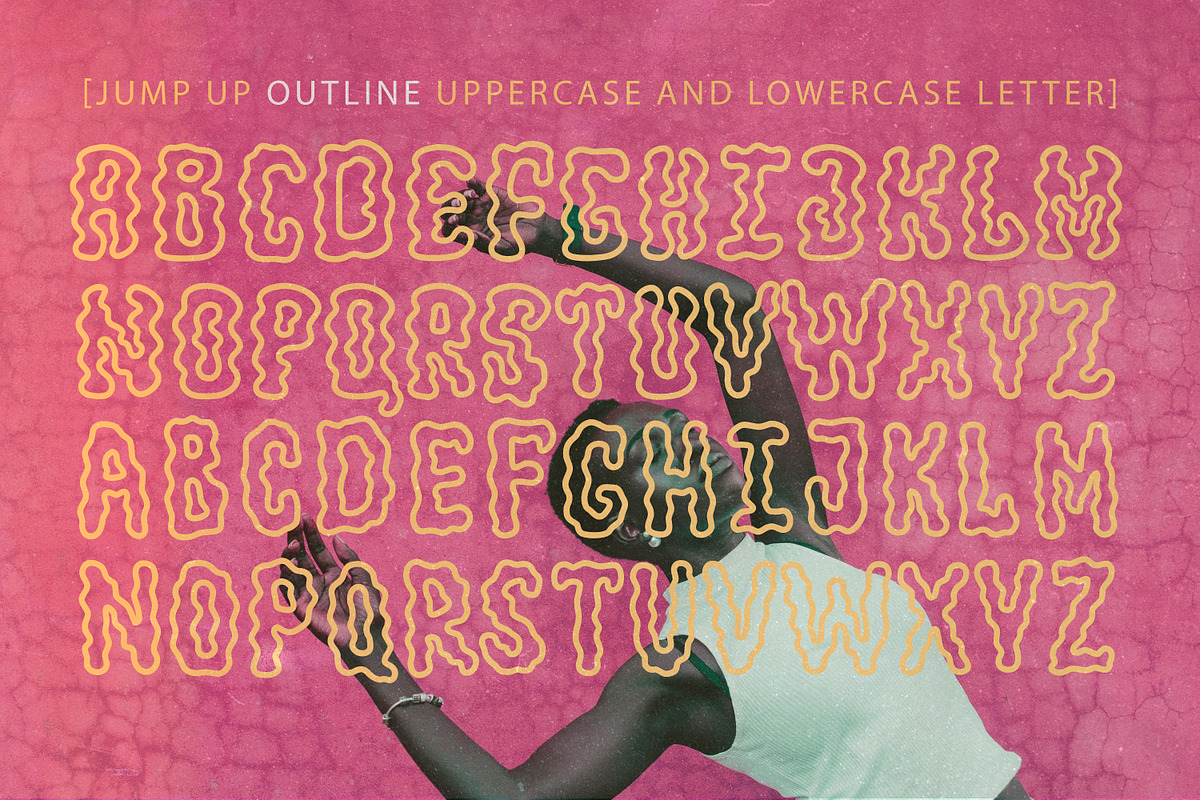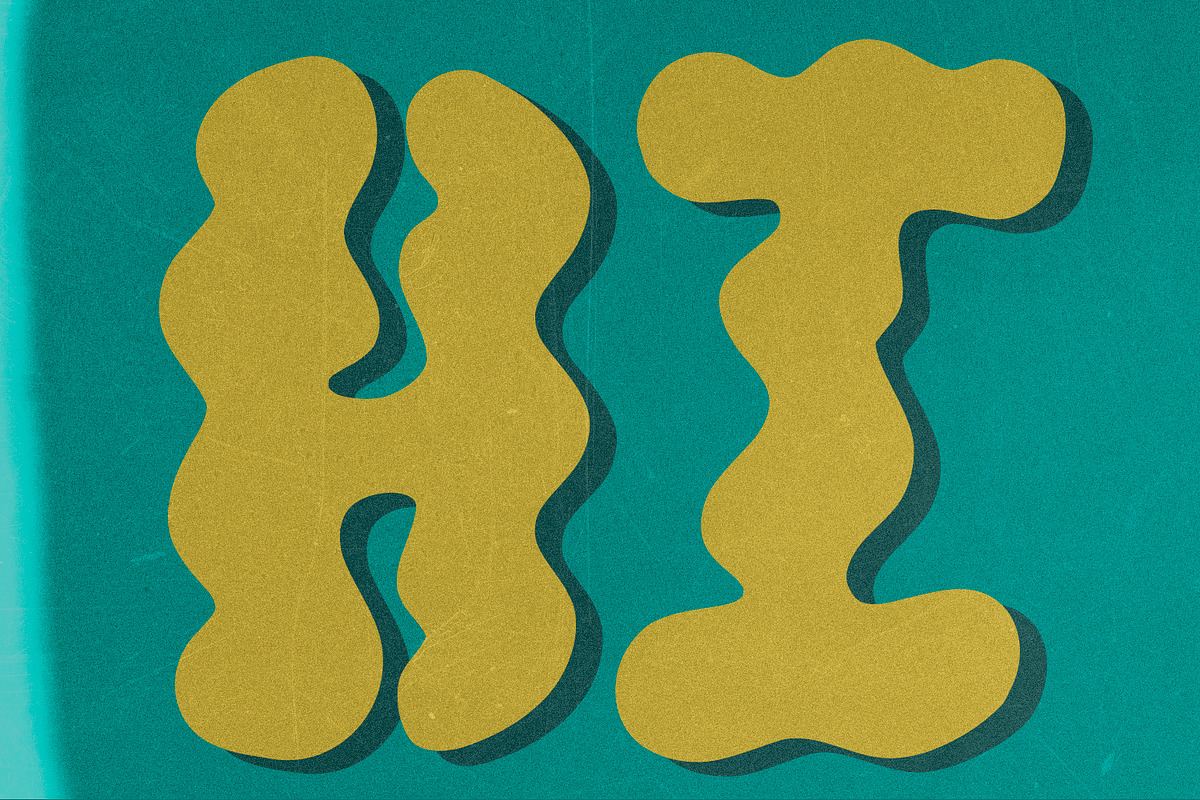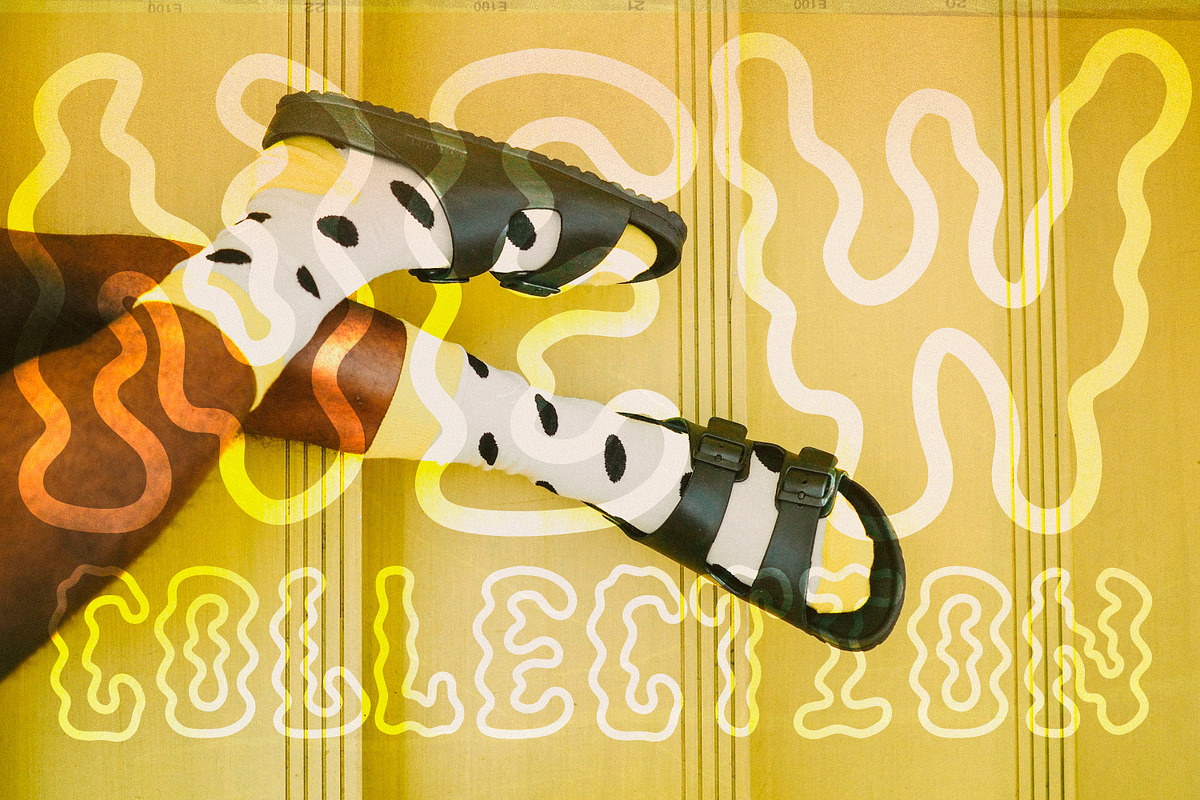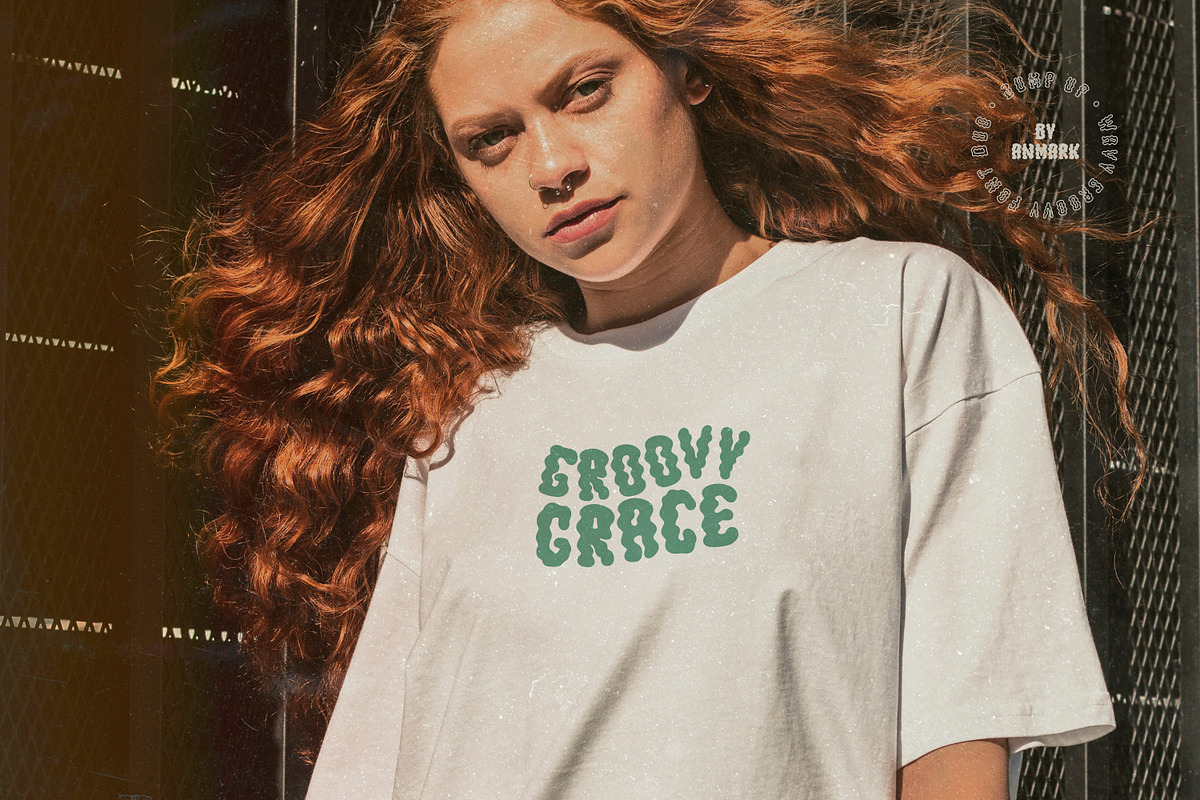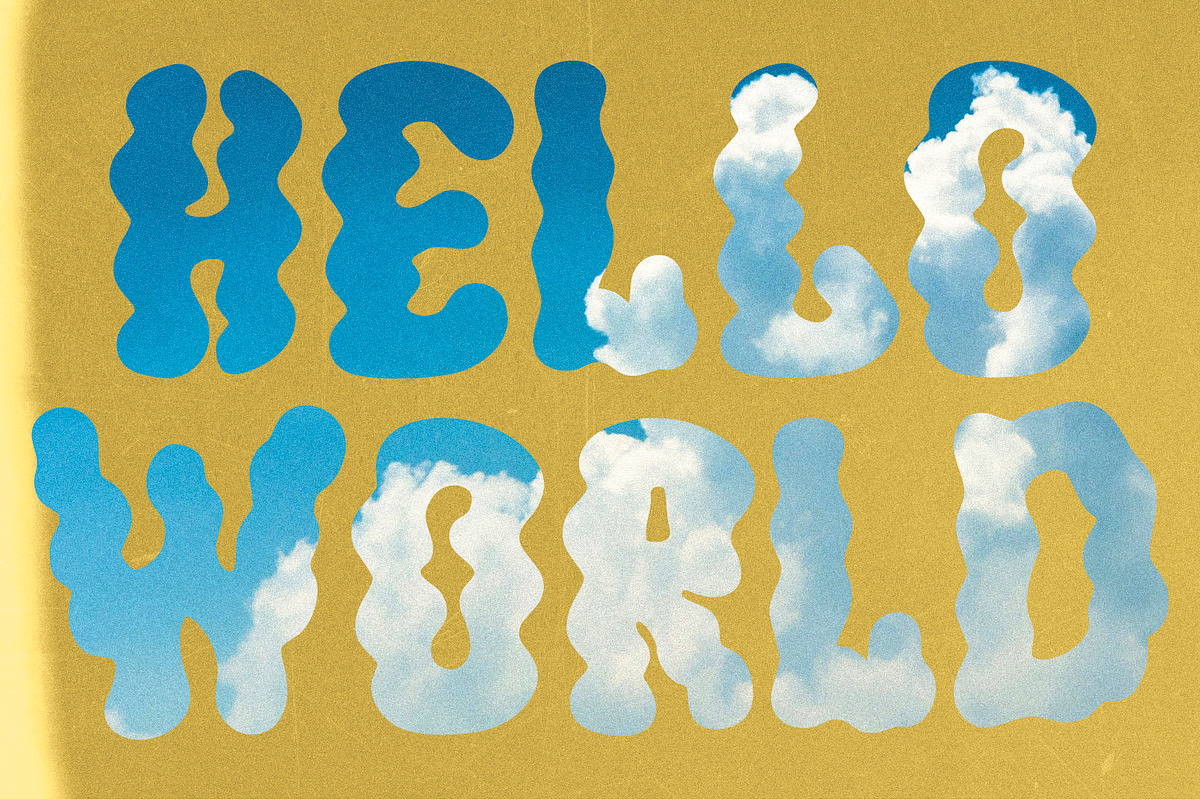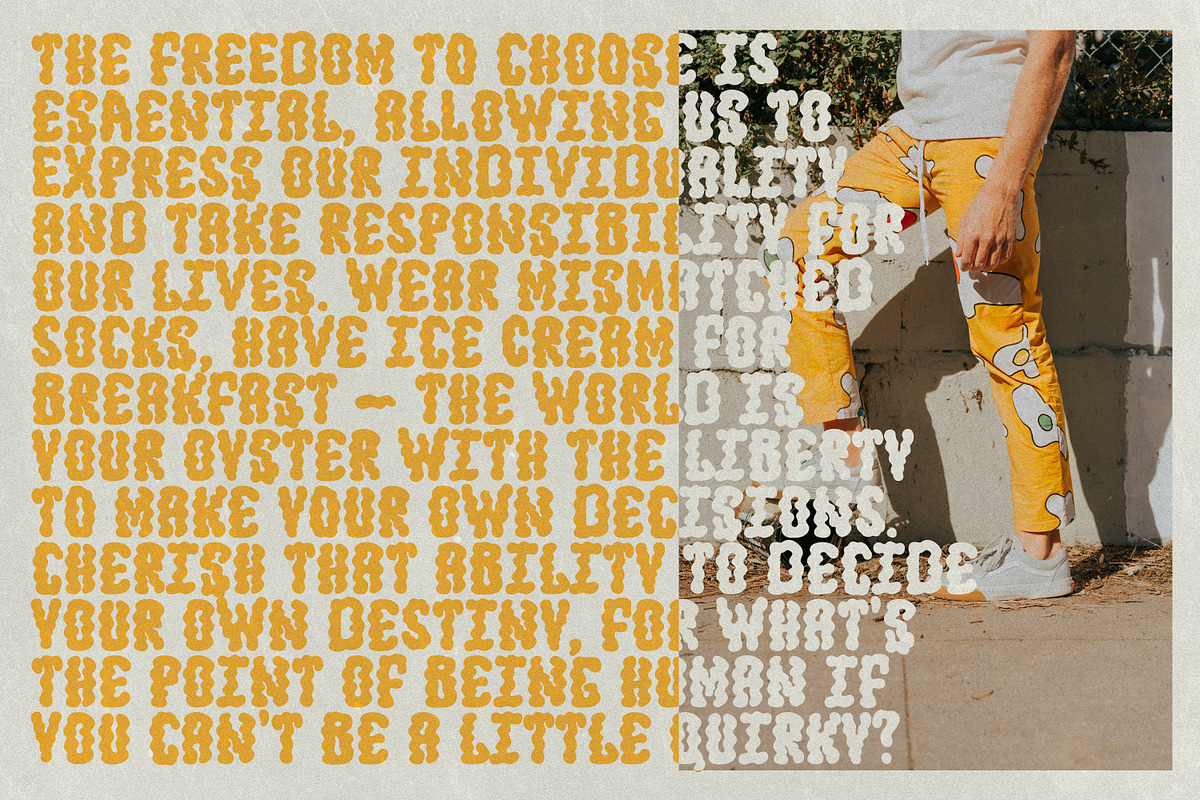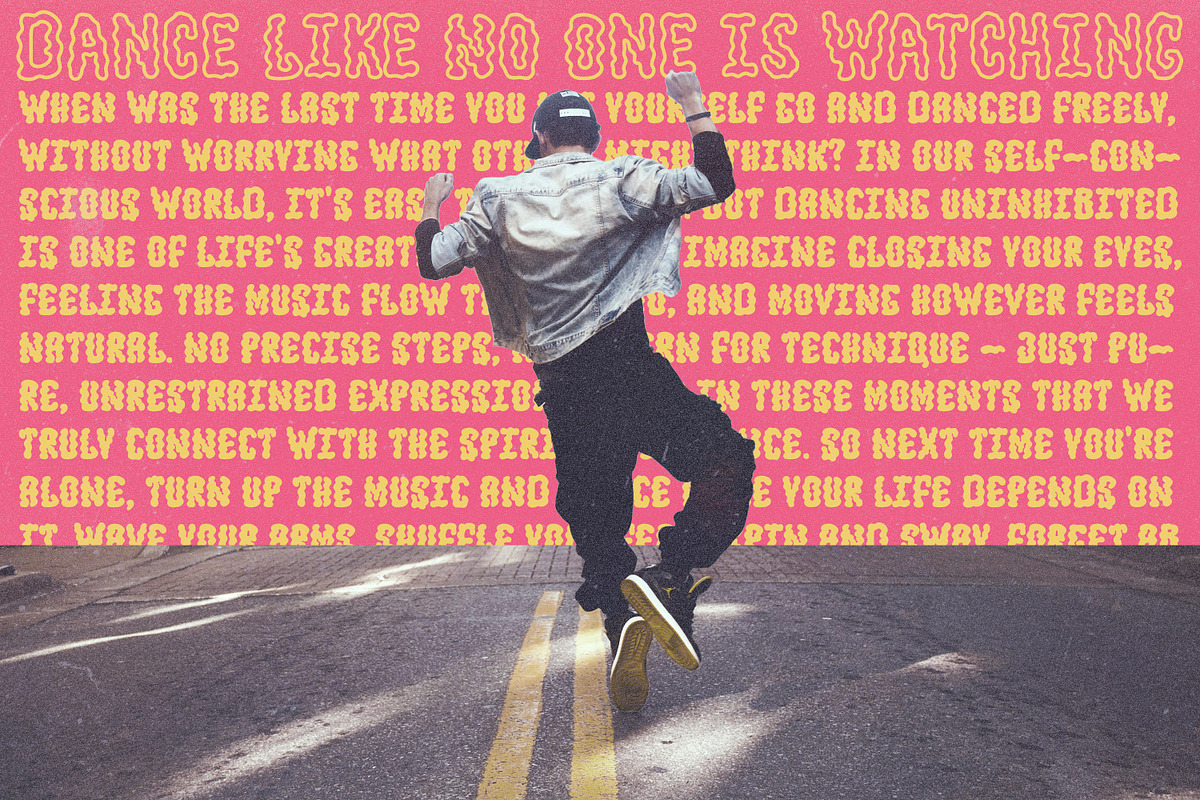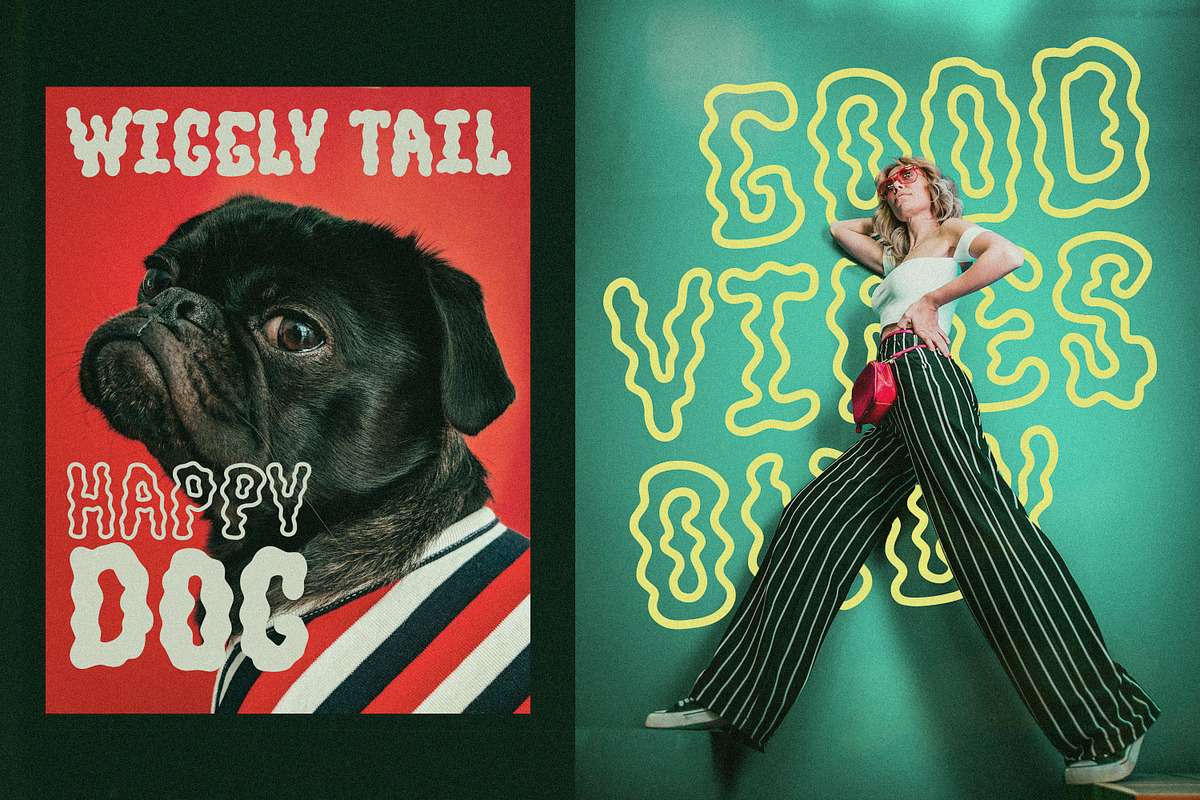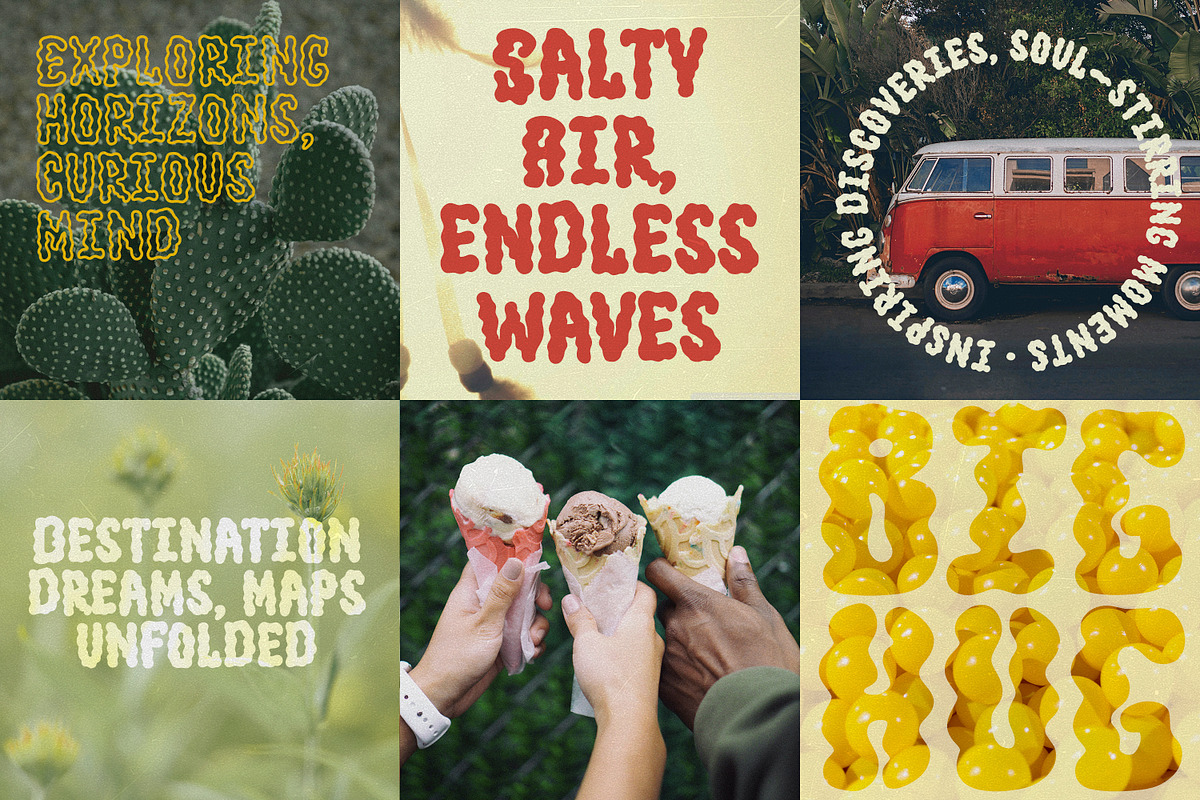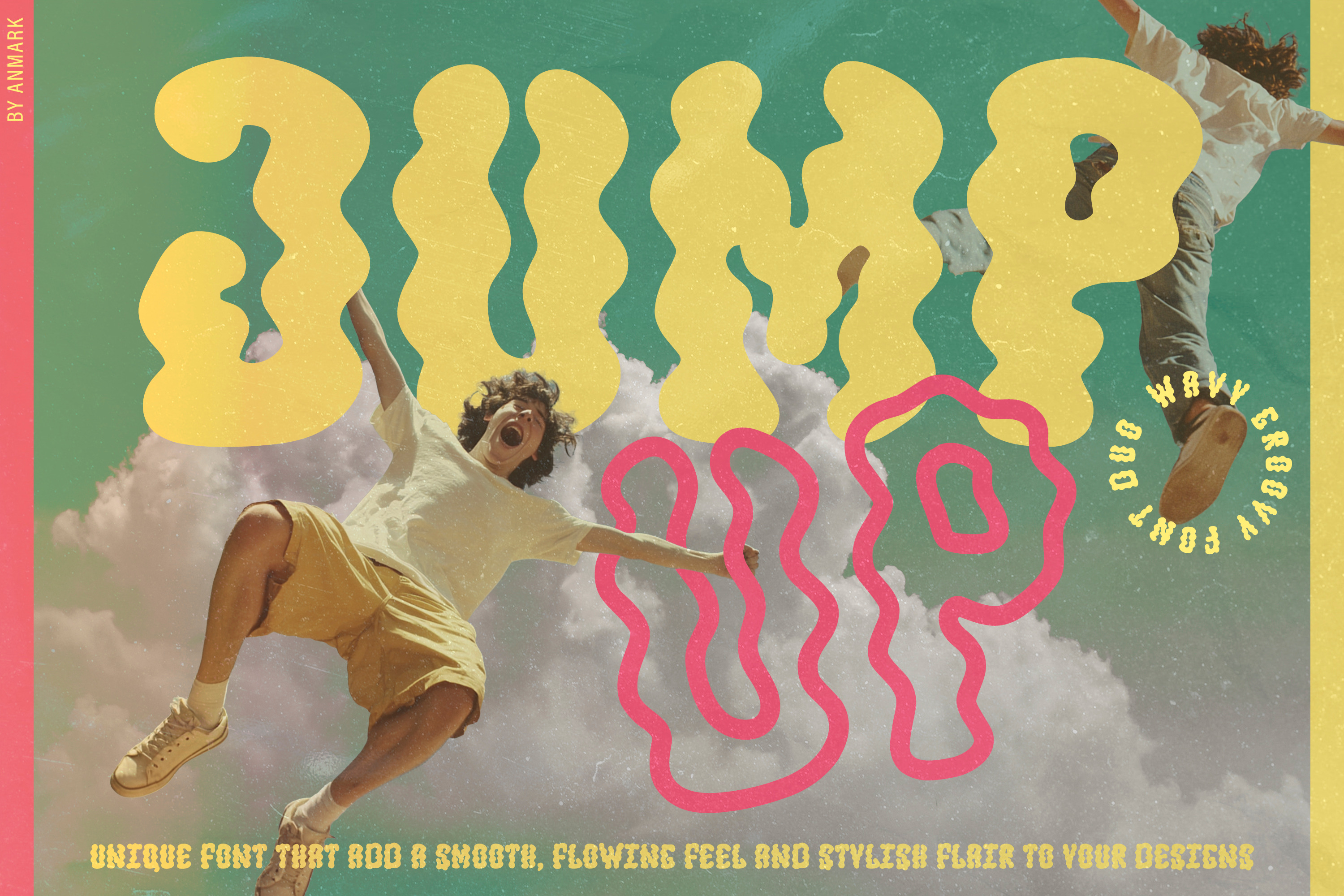
Jump Up | Wavy Groovy Font Duo
Jump Up is a lively, retro-inspired font with a fun, bouncy energy. The wavy, undulating letterforms create a sense of kinetic movement, adding an effortless groove to any design.
Jump Up font from the Wavy Groovy Font Duo is well-suited for a wide range of creative applications, including logotypes, stickers, packaging design, Cricut projects, headlines, brand identity, t-shirts and apparel, posters, magazines, books, YouTube, Instagram, websites, and any other design projects you can imagine. Its lively, retro-inspired script with undulating letterforms adds a sense of kinetic energy and effortless groove to your designs.